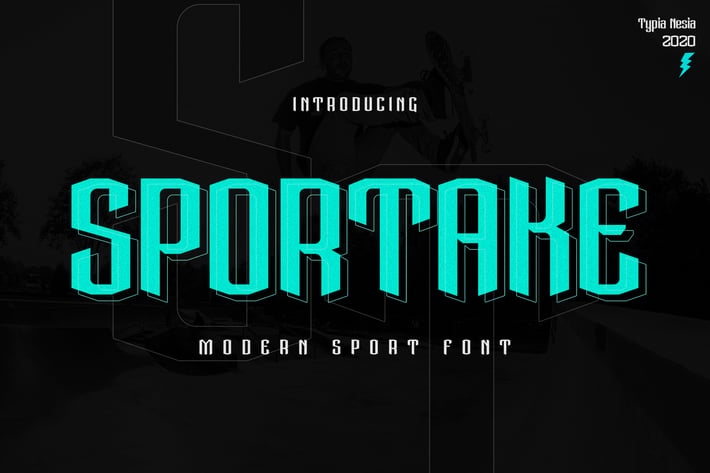
Sportake - Sport Font
Sportake - Sport Condensed Sans Serif Font
Sportake - Sporty Sans Serif Display Font is perfect for your up coming projects. Such as logo branding, editorial design, stationery design, sport design, game industry, music poster, blog design, modern advertising design, card invitation, art quote, home decor, book/cover title, special events and any more.